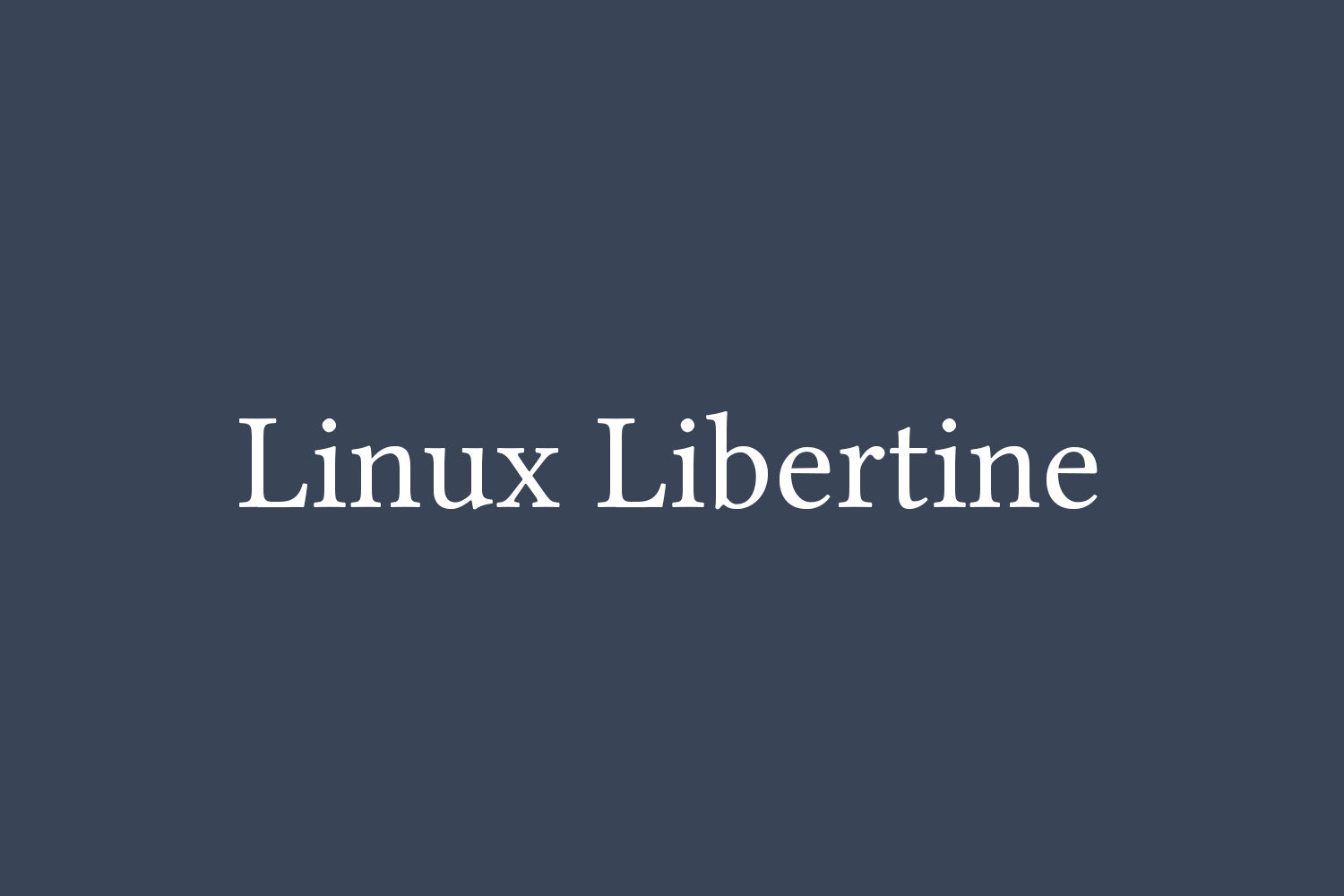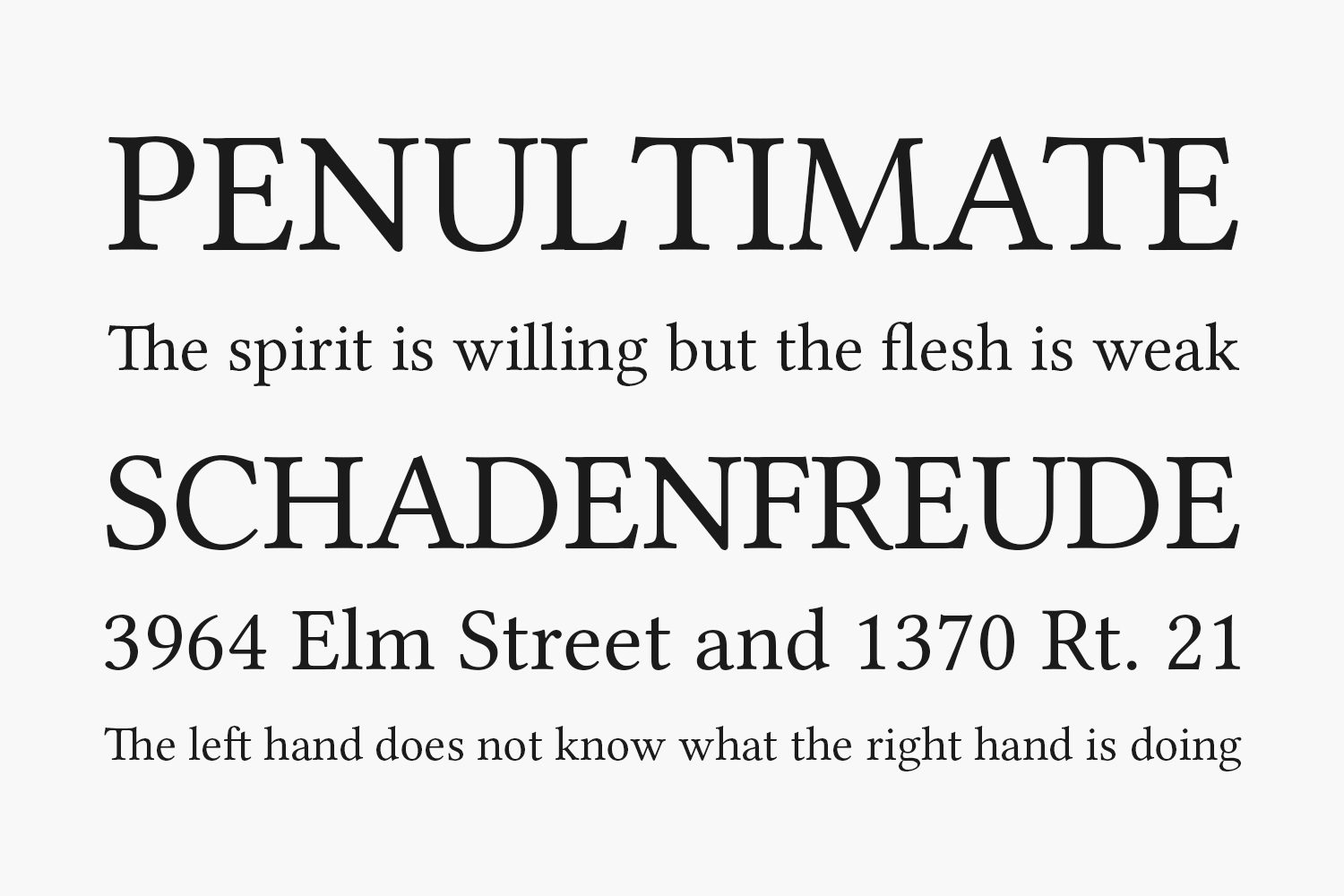
Libertine Free Font Family are different. We don’t copy standard Windows or Macintosh fonts such as Times (new Roman) or Arial/Helvetica, which are ubiquitous anyway and thus causative for the widespread typographic monotony. We want to give you a professional alternative. To enhance diversity and optimize the face Libertine Fonts make use of design features such as ligatures, small capitals, different number styles, etc.
Designed by Philipp Poll